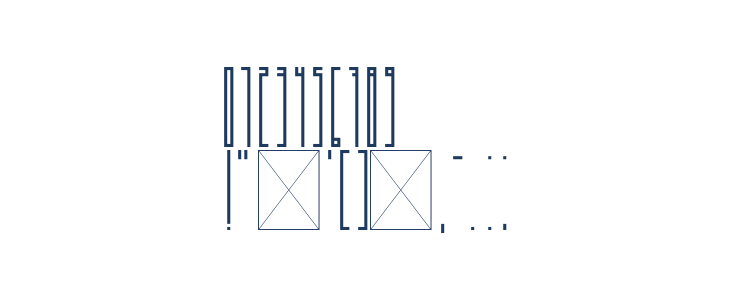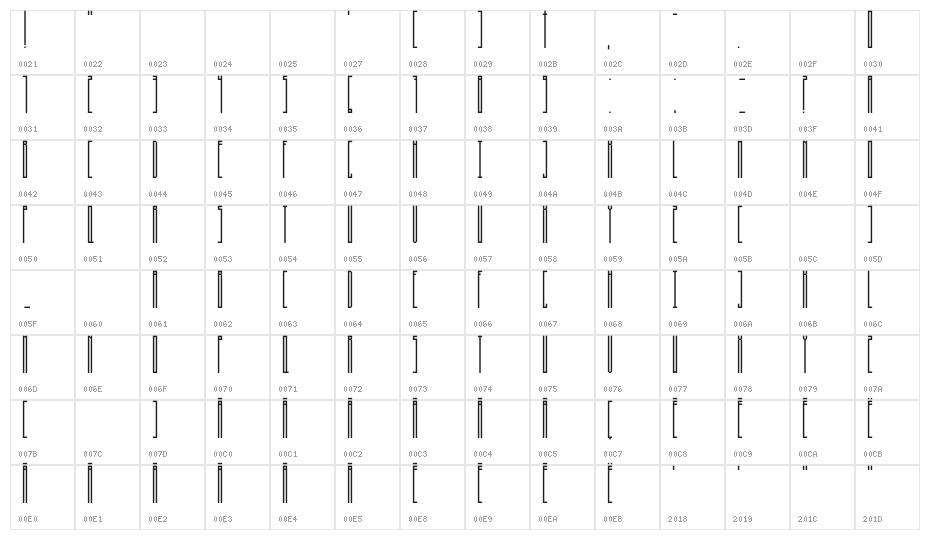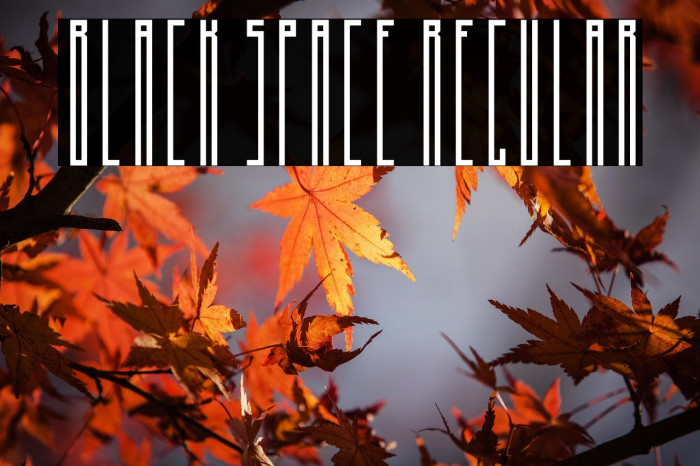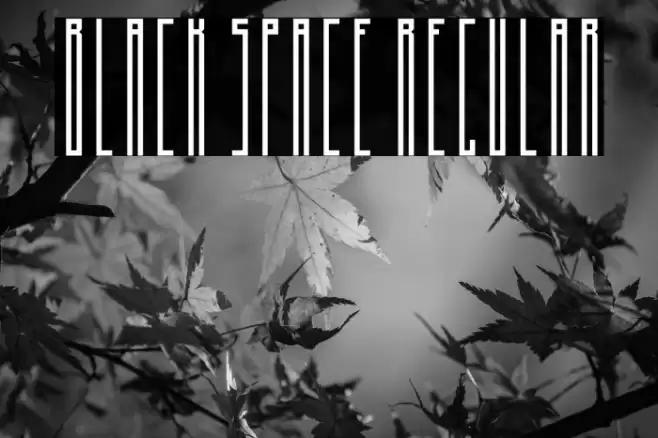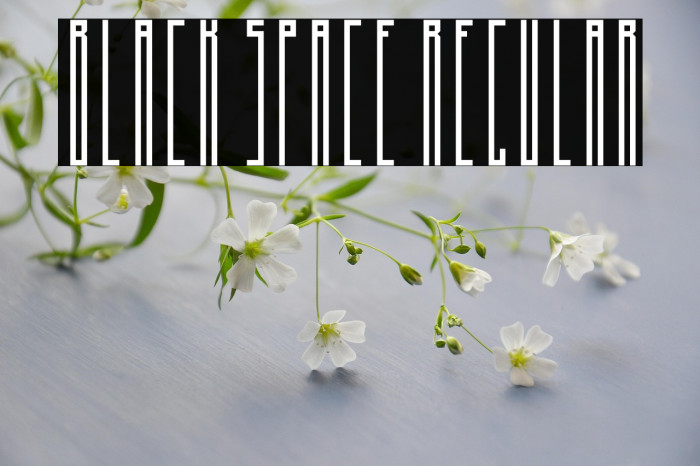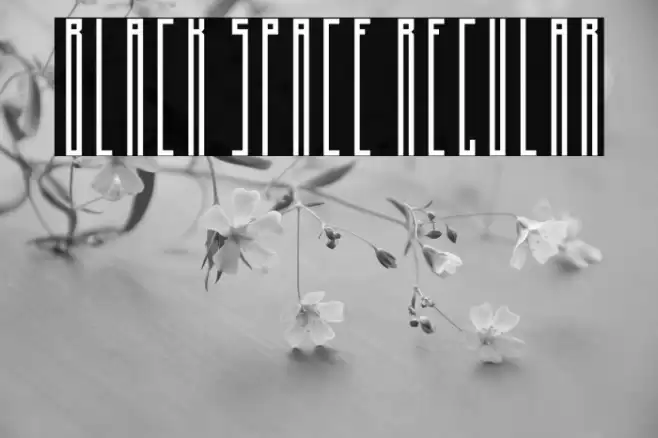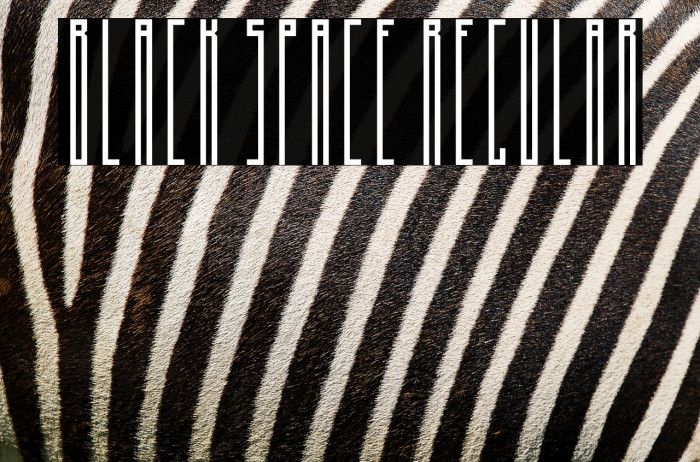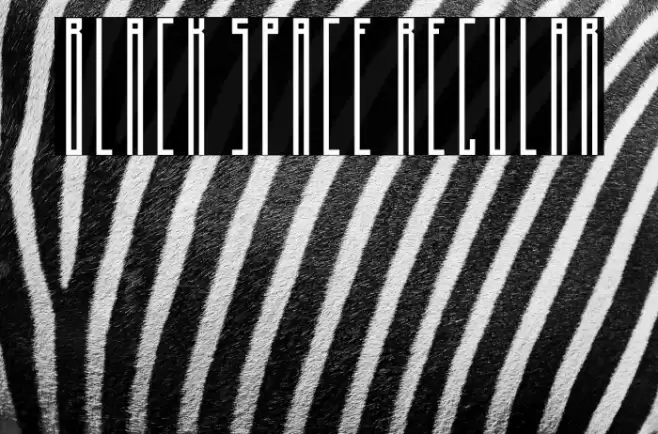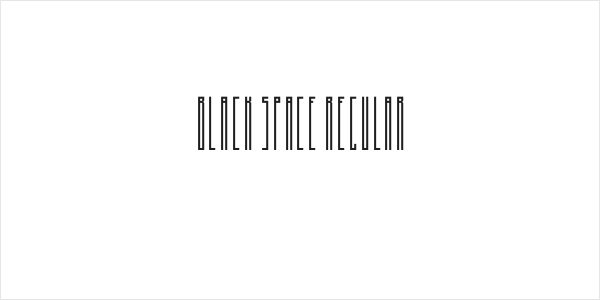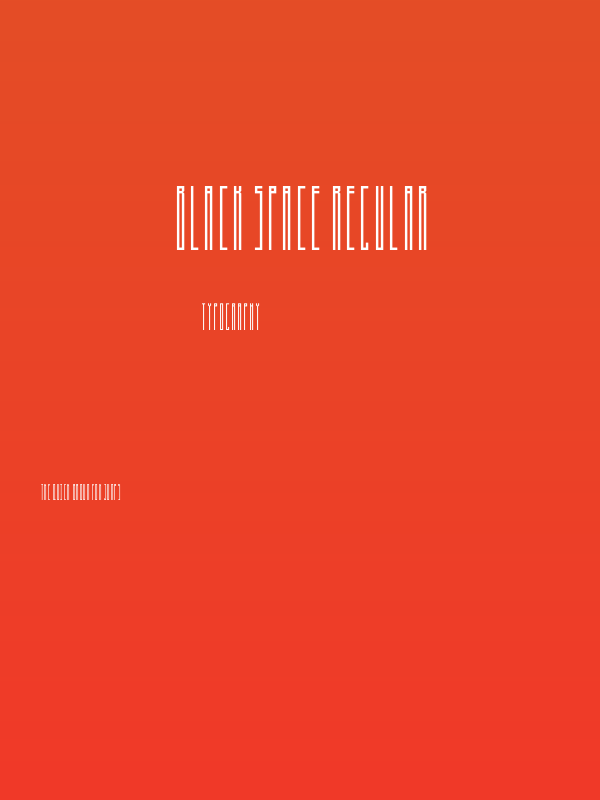
Black Space Regular Font
Black Space Regular Description
This font exhibits a futuristic and geometric design, characterized by its sharp angles and straight lines. The characters are constructed with a consistent stroke width, giving it a uniform appearance. The uppercase and lowercase letters maintain a similar height, contributing to a monospaced feel. The numerals and special characters follow the same design principles, ensuring cohesion across all glyphs. Its unique style makes it stand out, suitable for projects that require a modern and edgy aesthetic.
Proposed ProjectsIdeal for sci-fi themed designs, tech branding, digital art, and modern posters.